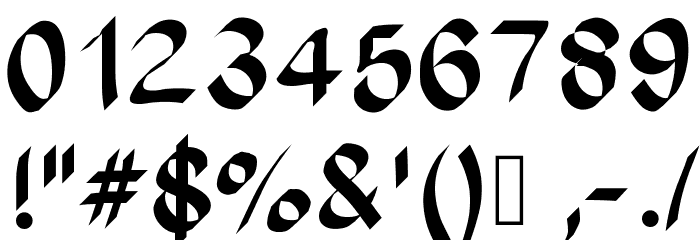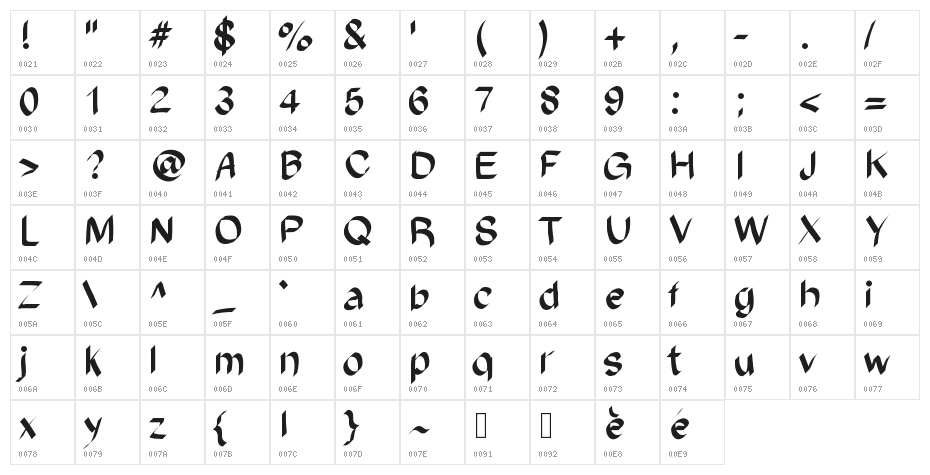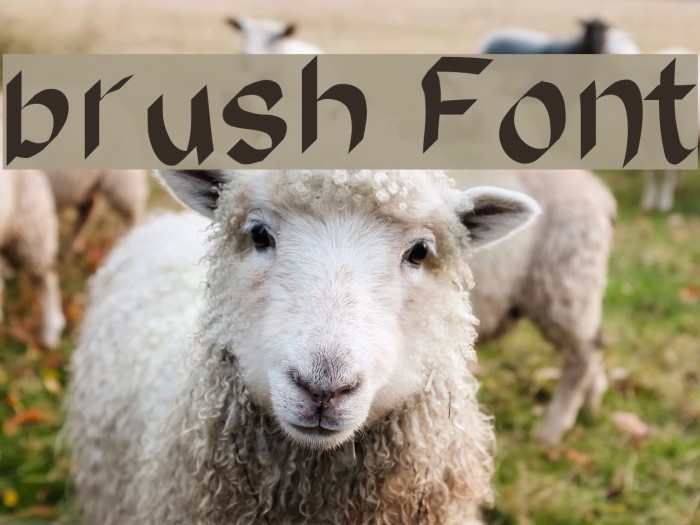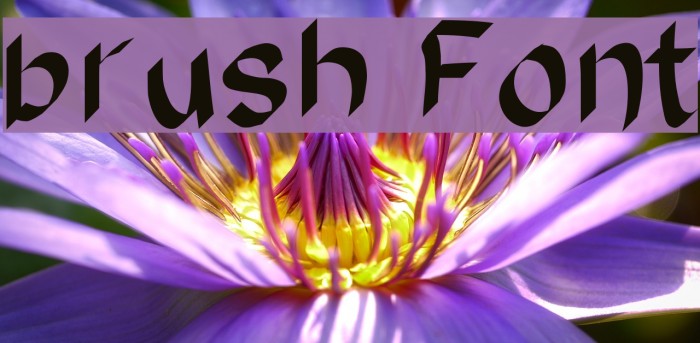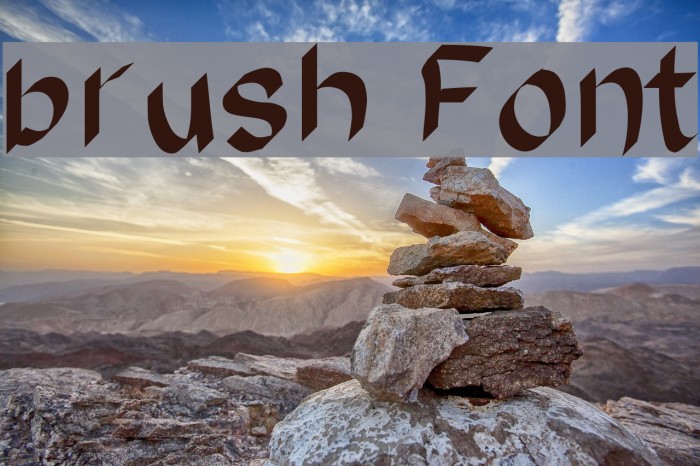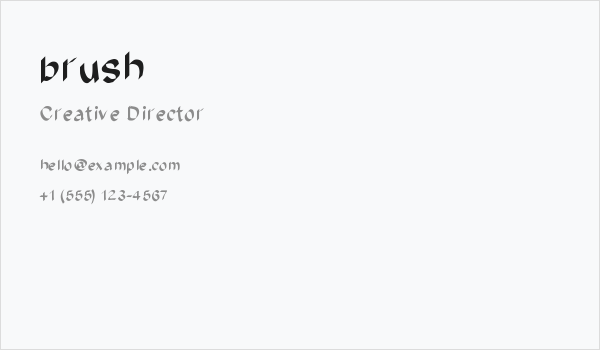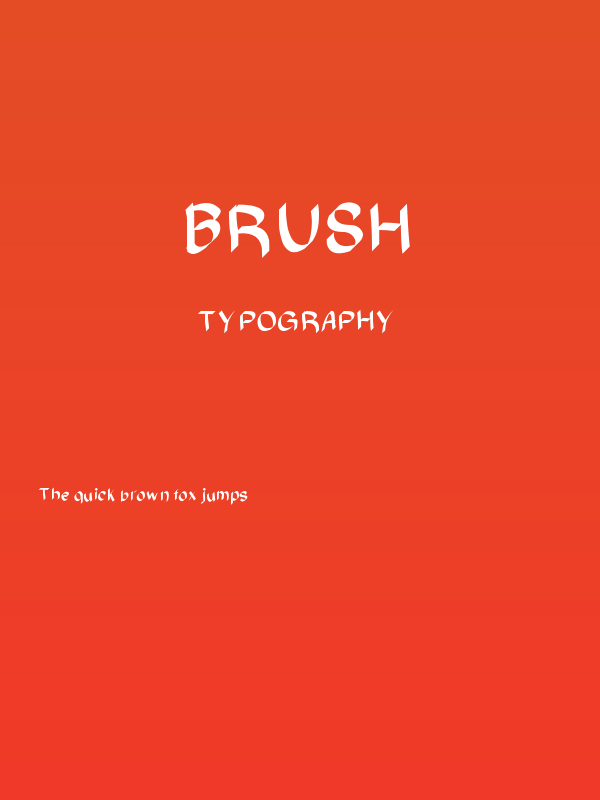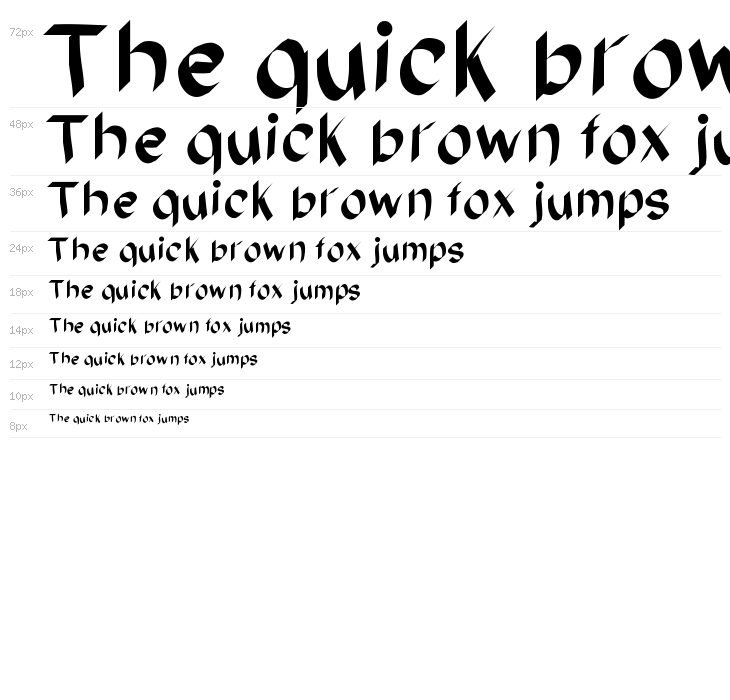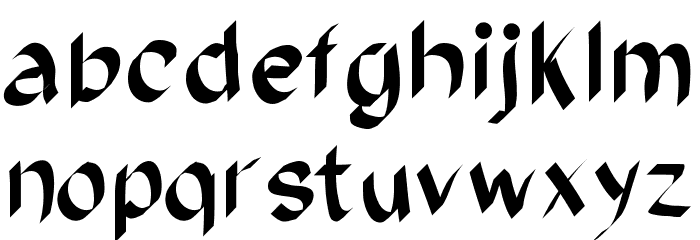
brush Font
brush Description
This font features a dynamic and artistic style, reminiscent of brush strokes. The characters exhibit a fluid and expressive form, with varying thickness in the strokes that create a sense of movement and energy. The uppercase letters are bold and impactful, while the lowercase letters maintain a consistent flow, enhancing readability. The numbers are distinct and maintain the same artistic flair, making them suitable for creative displays. Special characters are integrated seamlessly, adding to the font's versatility. Overall, this font captures a sense of creativity and spontaneity, making it ideal for projects that require a personal and artistic touch.
| Overall Style | Artistic |
| Proposed Projects | Ideal for artistic projects, branding, posters, and creative invitations. |